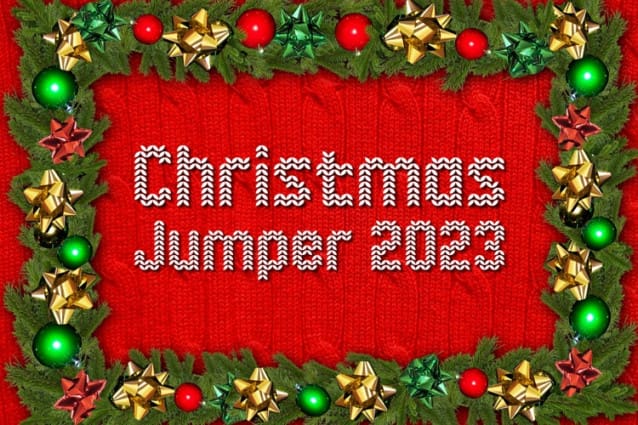
Christmas Jumper 2023 Font
Christmas Jumper 2023 Font, is a perfect decorative Christmas font that will look outstanding on everything you add it on. Masterfully designed to become a true favorite, this font has the potential to bring each of your creative ideas to the highest level!